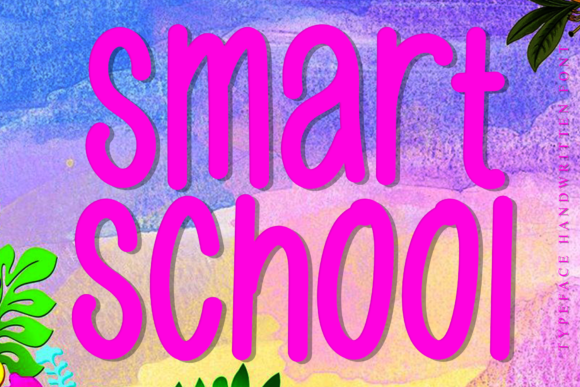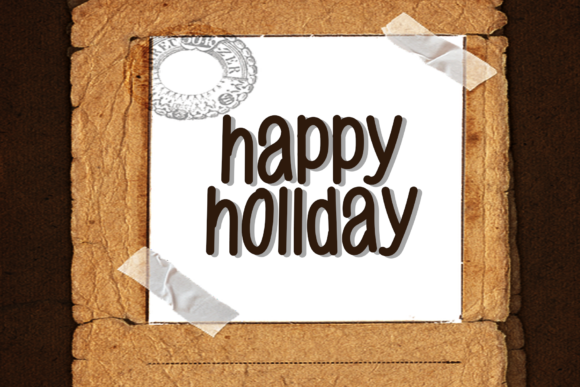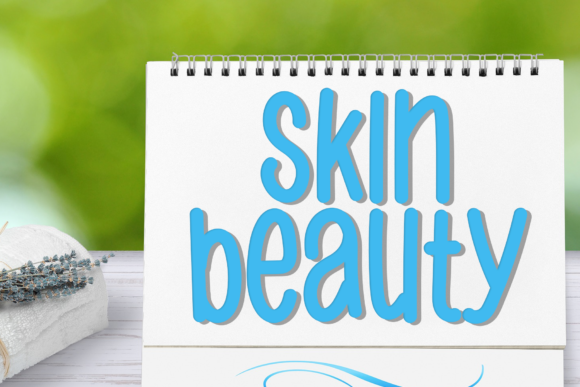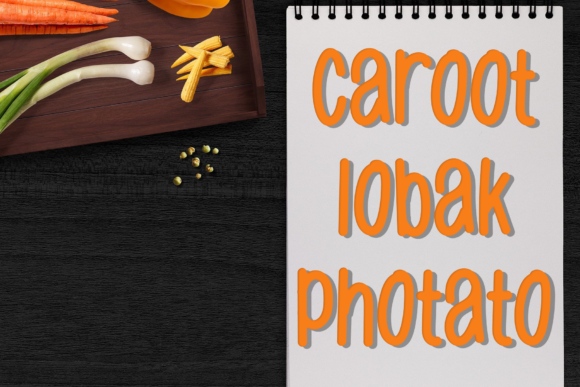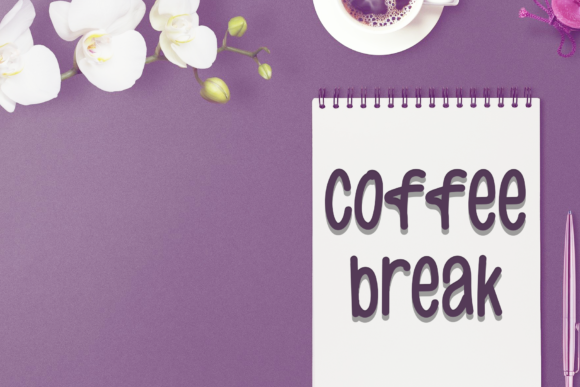
About Smart School Font
Smart School is a handwritten font with smooth lines and rounded edges that looks great on social media posts, wedding invitations, thank you cards, greeting cards, logos, business cards, and any other design that needs a handwritten touch.